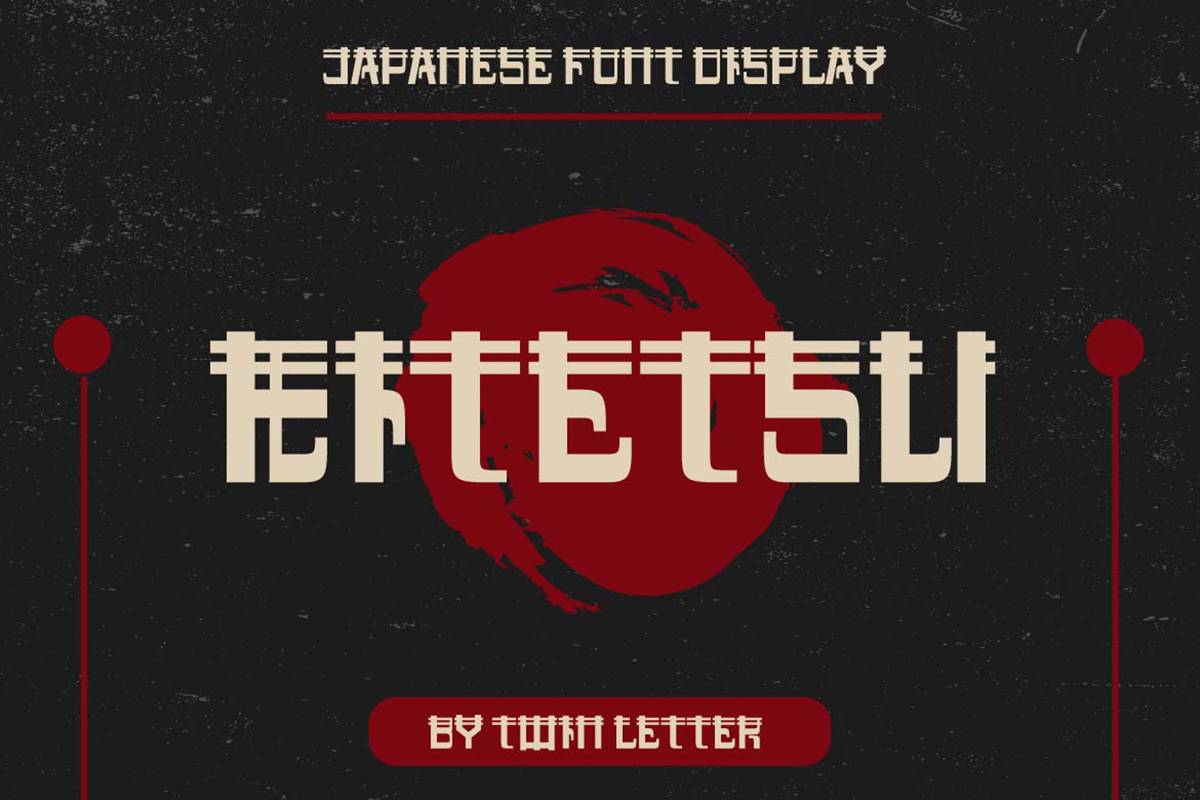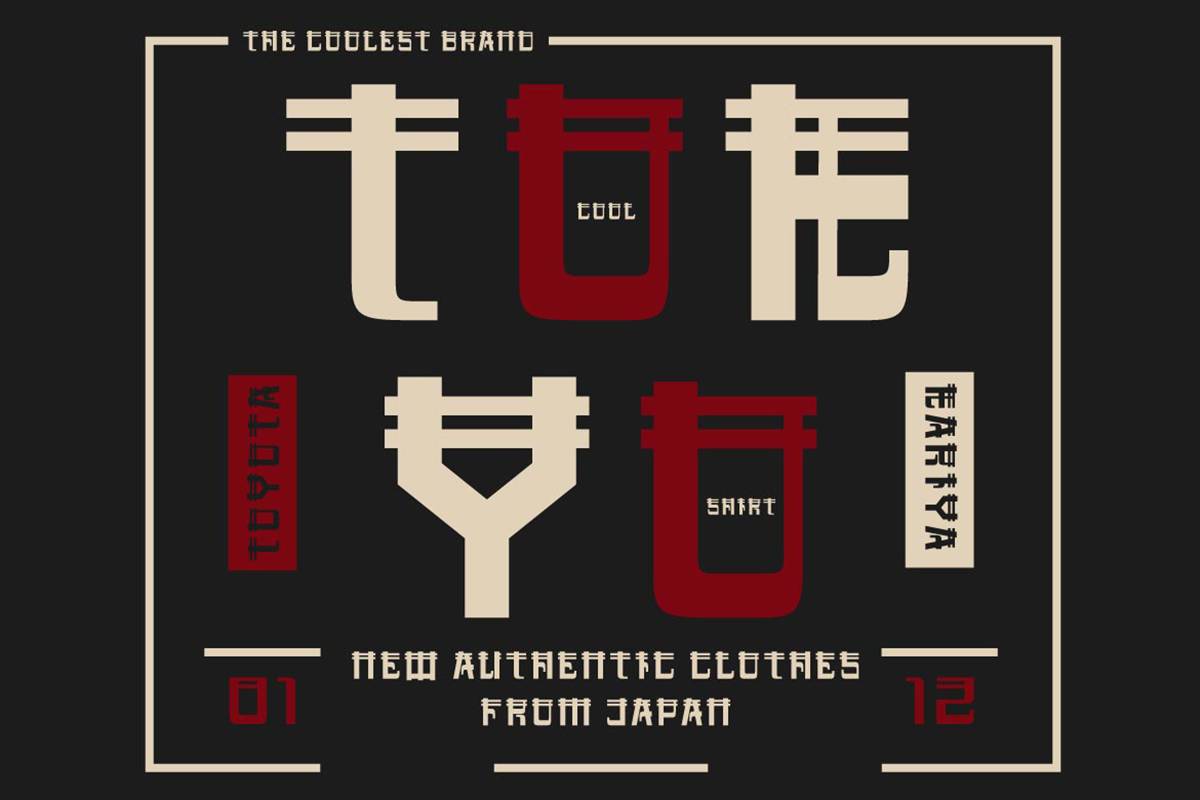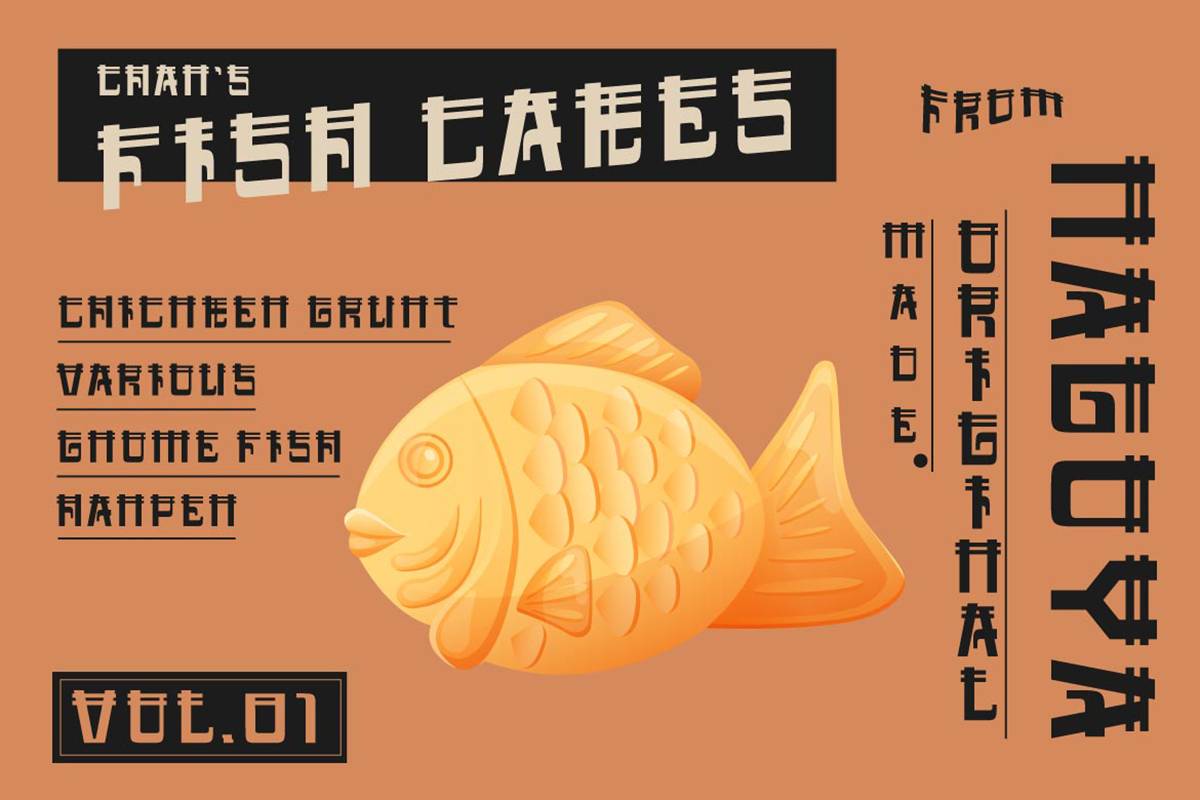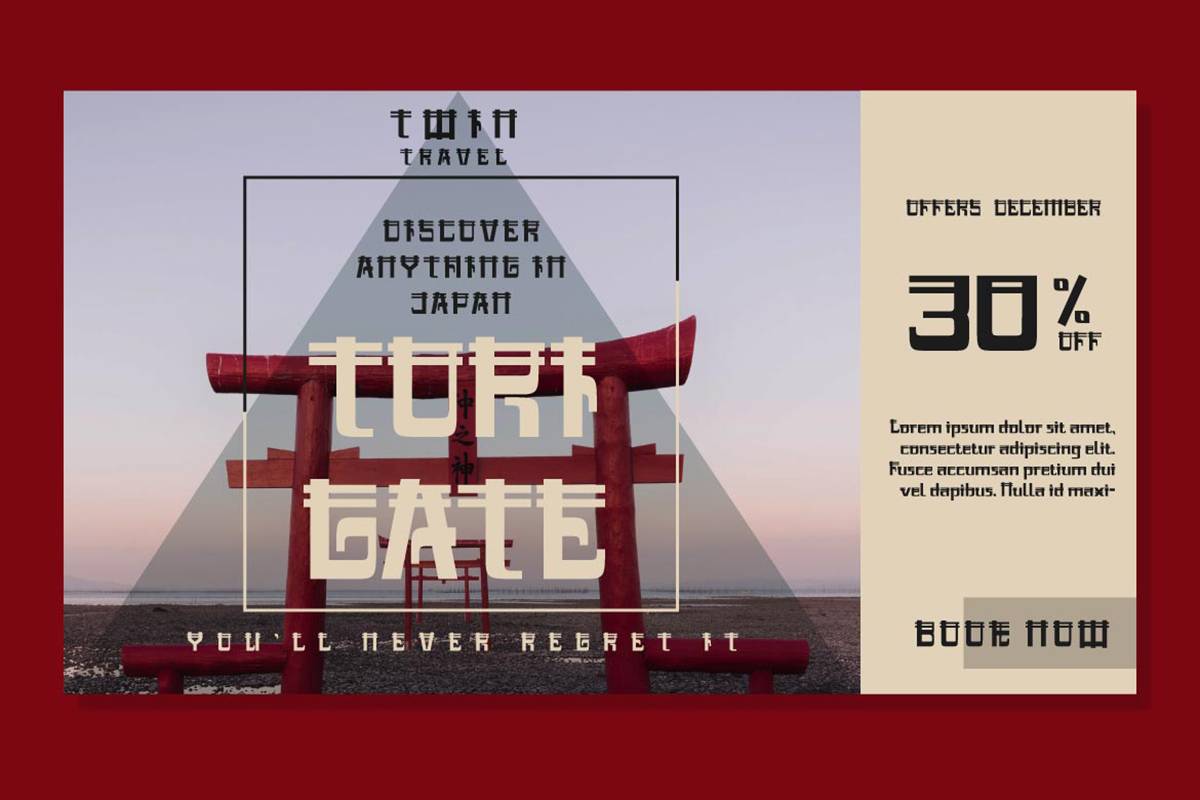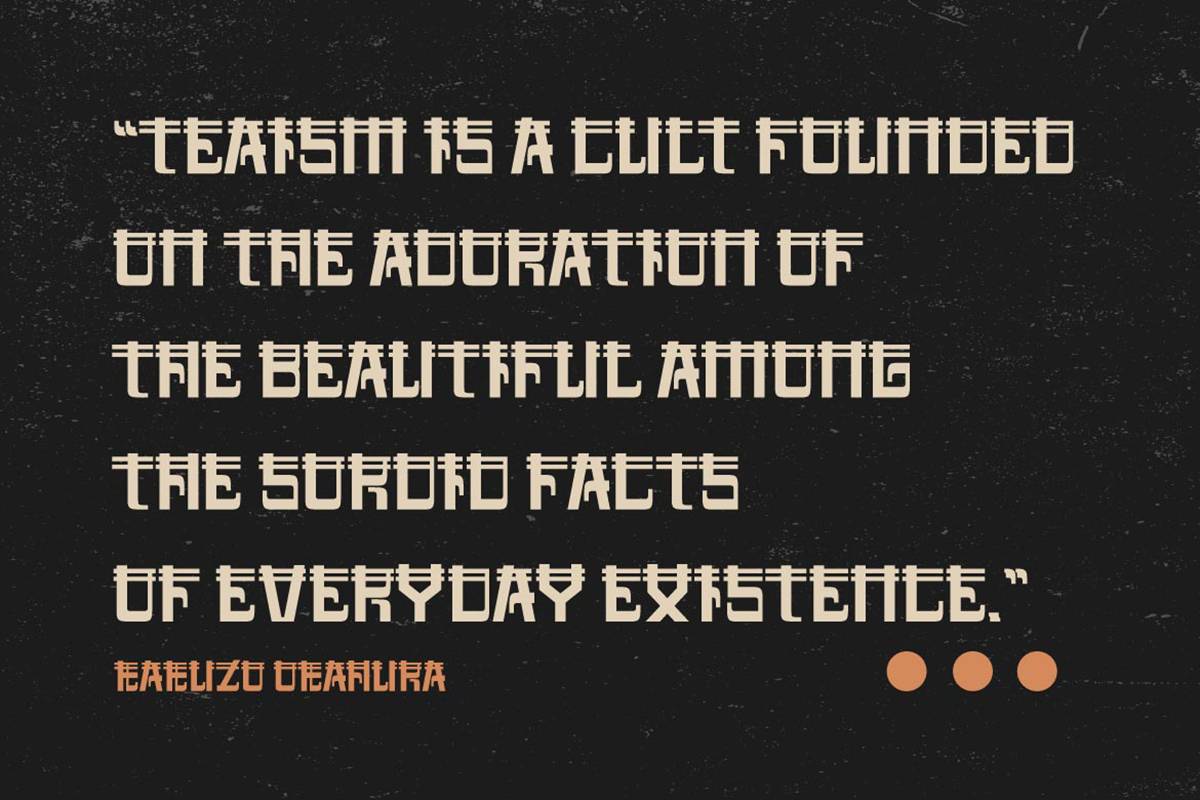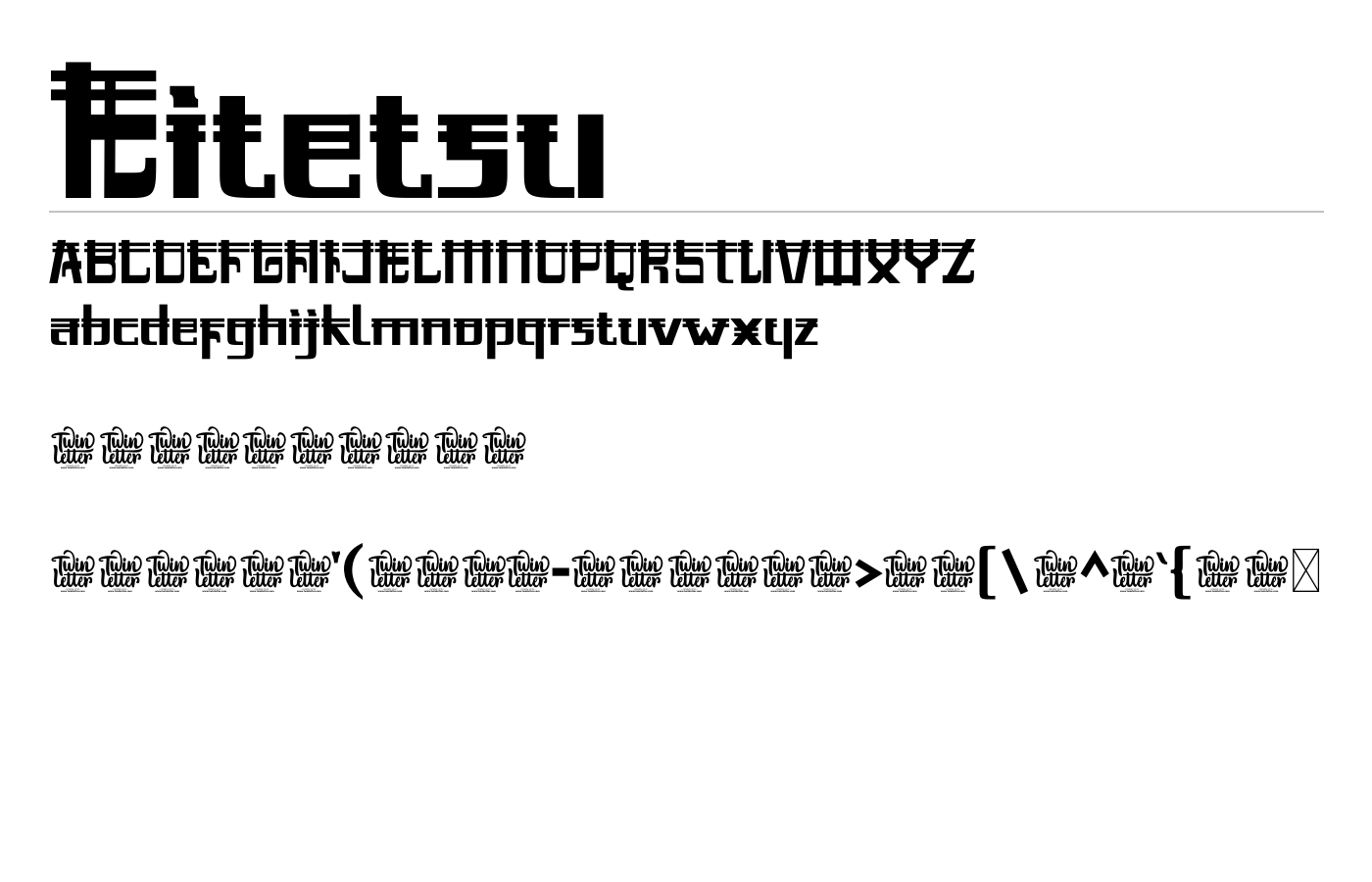
Kitetsu is a bold, condensed sans serif font with a futuristic and geometric feel, featuring sharp, blocky letterforms that give it a strong, technical character. Its high contrast and dense shapes make it ideal for striking headlines and logos, especially in tech, gaming, or modern branding where a powerful, innovative vibe is desired. This font stands out with its distinctive style, best used in display contexts where impact matters.
Kitetsu Font
About Kitetsu Font